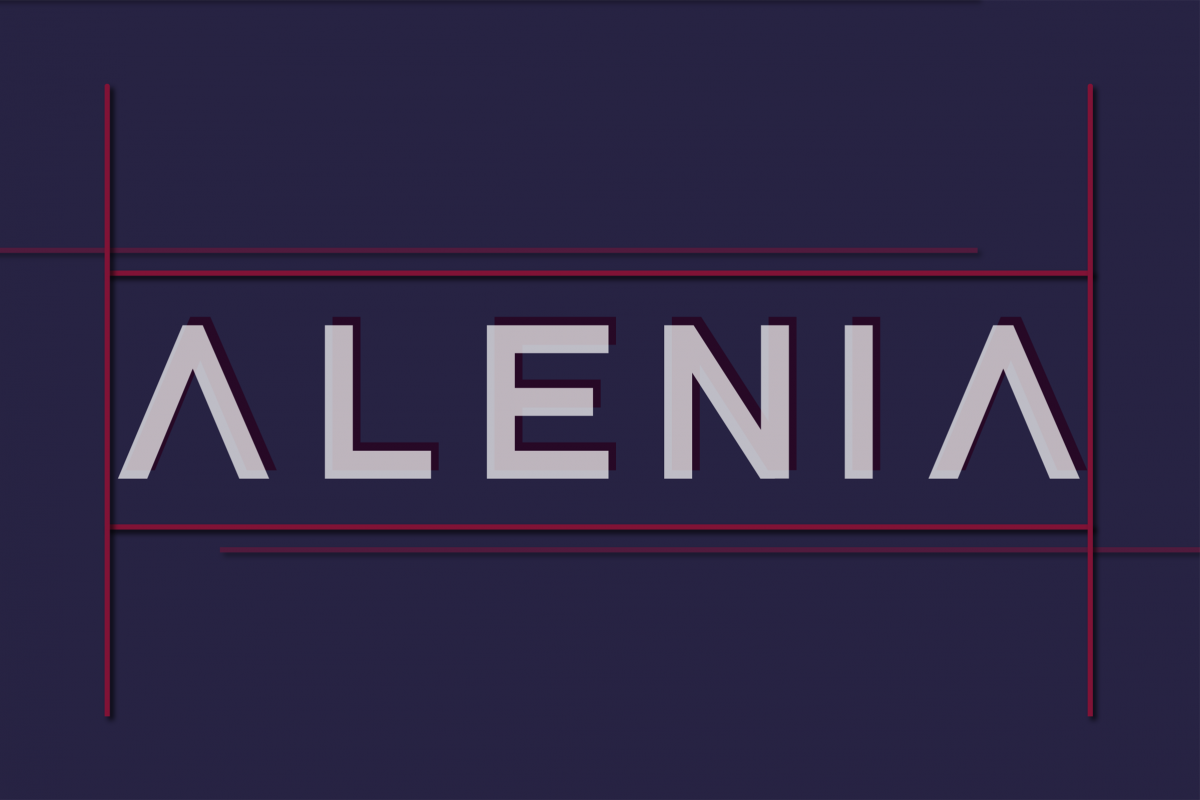
Alenia Display Font
Alenia
Alenia Display Font is a work of typography that uses the theme of sci-fi, where all the forms of letters are a unity of the master that forms an octagonal field. Why was the form chosen as the master of this font? The reason is because the octagon is a very flexible field that can be used into all of these letters. That is perfect for logo design, wedding and holiday invitations, social media, poster, magazine, quotes,  and so much more!